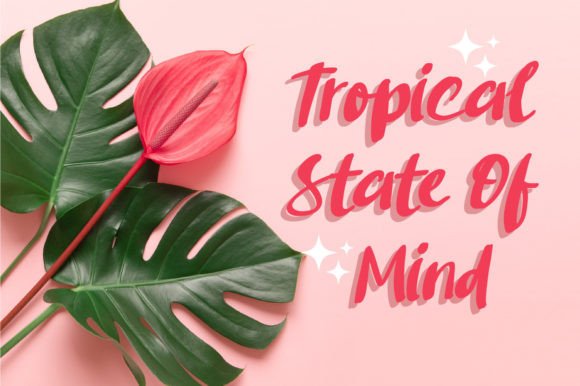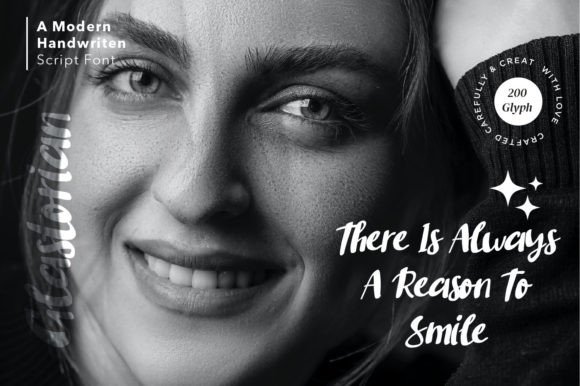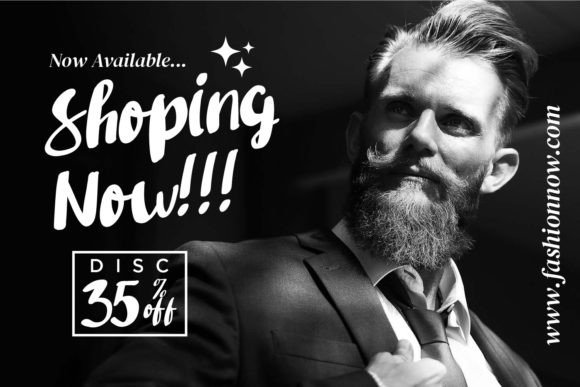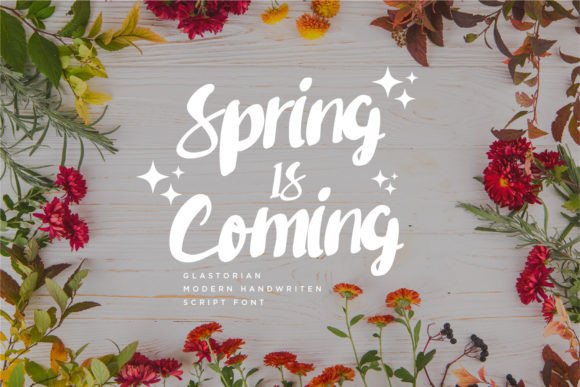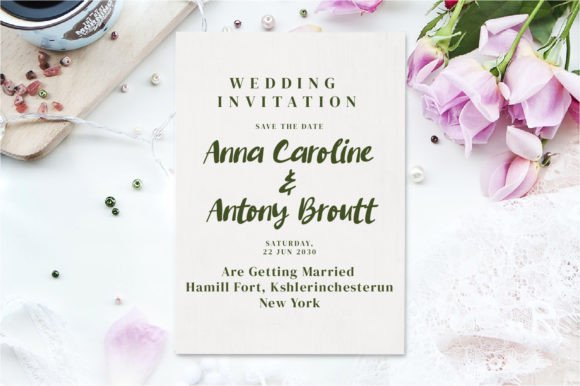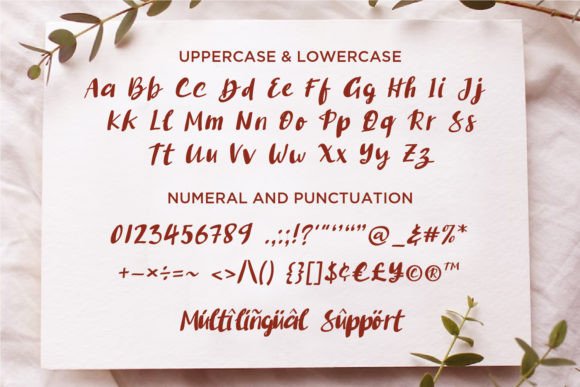
Introduction to Glastorian Font
This exquisite and delicate handwritten font is a masterful blend of grace and charm.
Glastorianโ€™s soft, gentle curves and intricate details create a sense of intimacy and elegance that is perfect for adding a touch of refinement to your stationery or branding With its understated beauty and classic style, this font is sure to impress and inspire.
Key Features of Glastorian Font
Why Choose Glastorian Font?
Glastorian Font offers exceptional quality and versatility, making it a valuable addition to your design toolkit. Whether you’re creating for personal projects or commercial use, Glastorian Font delivers professional results.